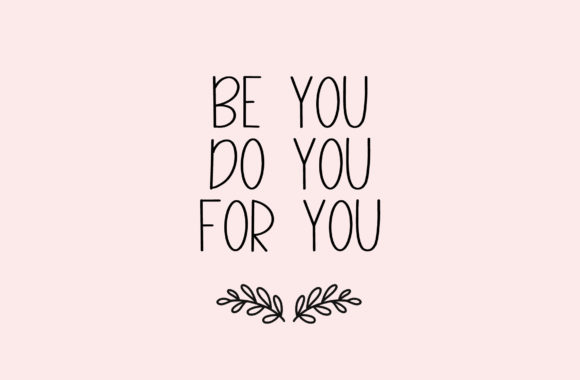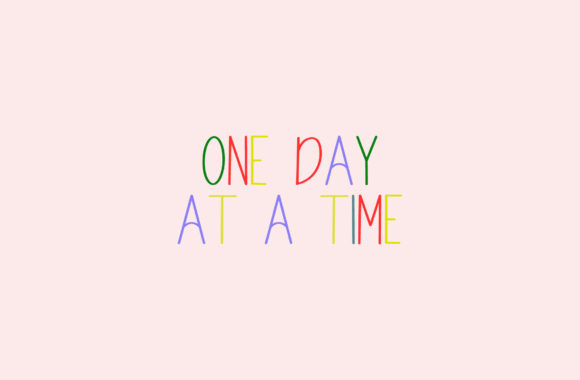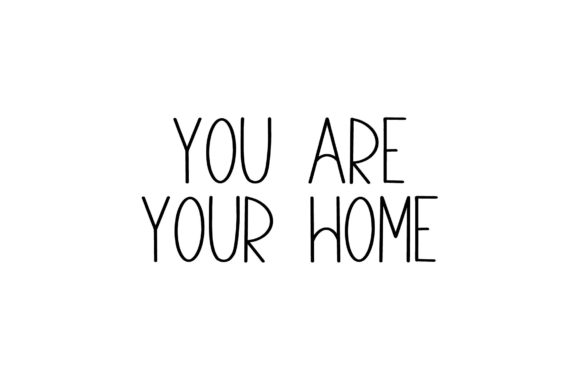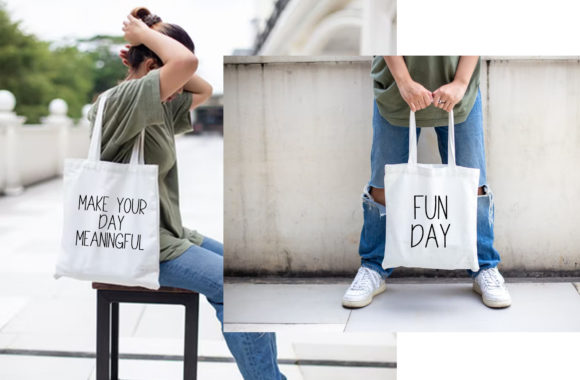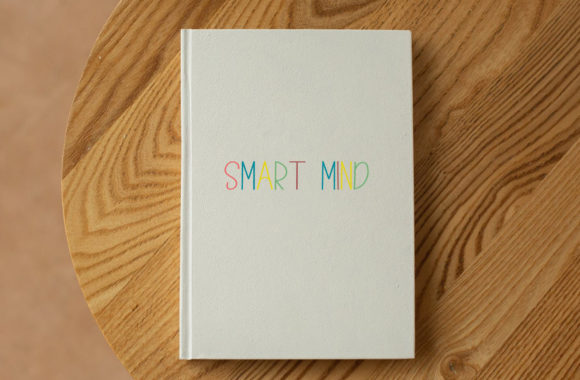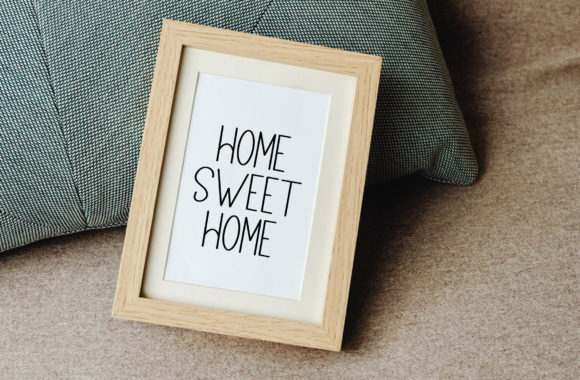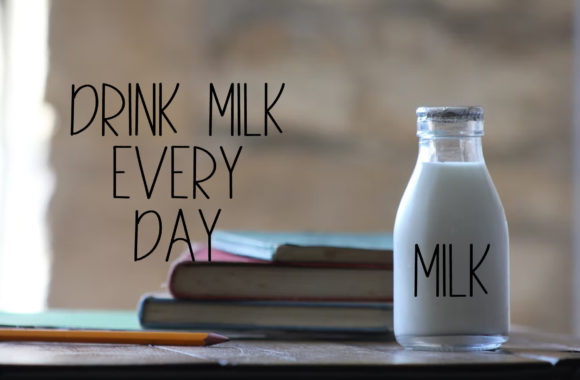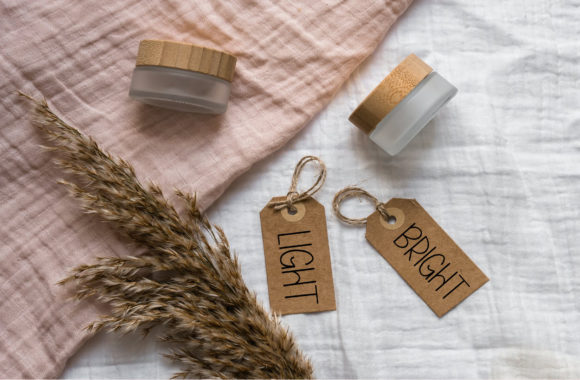
Holland Font
“Holland” is a vibrant and contemporary hand-lettered typography that radiates a sense of playfulness and modernity. It has been crafted with precision to suit a wide range of applications, including titles, flyers, greeting cards, product packaging, book covers, printed quotes, logotypes, clothing designs, album covers, and beyond.
This font’s charm lies in its ability to infuse a sense of fun and freshness into any project it’s applied to. Its modern design brings a unique touch to various forms of visual communication, helping to capture the attention of the audience and conveying a sense of contemporary style.
“Holland” is particularly well-suited for conveying impactful titles and messages, grabbing the viewer’s attention right from the start. Its versatility shines in diverse contexts, from commercial uses like product packaging to creative ventures like album artwork.
Ultimately, “Holland” hand-lettered typography offers a versatile and engaging option for designers and creators seeking a visually striking way to communicate. Its modern and lively design makes it an excellent choice for a wide array of projects, enabling a fresh and exciting visual representation.